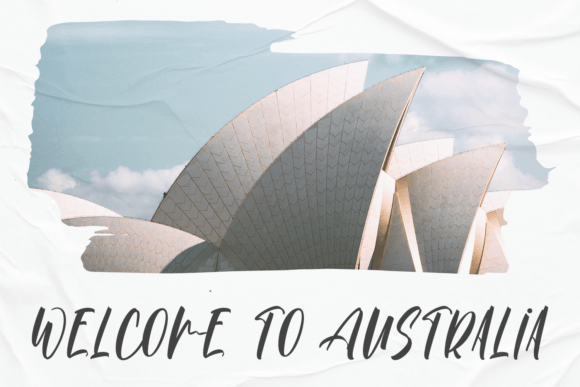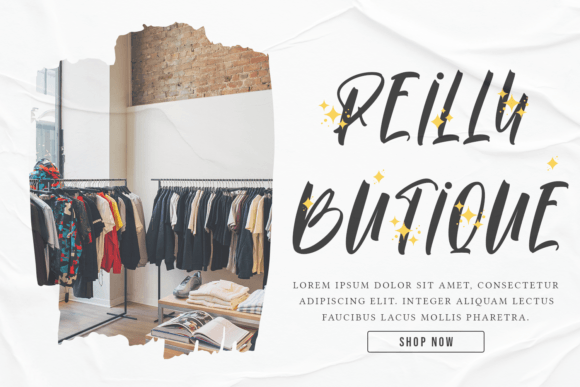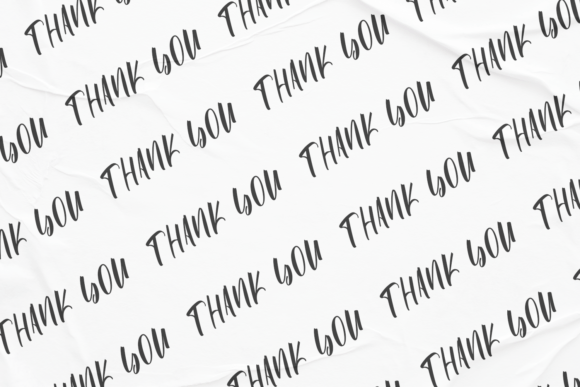
Nicholas Font
About Nicholas Font
Introducing Nicholas, a fun and friendly handwritten font that adds a touch of whimsy and a dash of quirkiness to your designs. With its playful vibe, this font is designed to bring joy and brightness to each of your creative projects. Add Nicholas confidently to your designs, and you’ll love the results as it injects a sense of fun and personality.
What sets Nicholas apart is its lighthearted and approachable demeanor. The handwritten style adds a touch of authenticity, making it perfect for projects that require a friendly and casual vibe. Imagine Nicholas on greeting cards, where it brings a smile to the recipient. Picture it in posters or social media graphics, creating a sense of playfulness that captures attention.
Nicholas goes beyond being just a font; it’s a creative tool that brings a sense of joy to your designs. Its whimsical nature makes it suitable for a variety of applications. Whether you’re working on invitations, quotes, or any project that needs a friendly touch, Nicholas is ready to infuse a bit of quirkiness into your creations.
Picture Nicholas brightening up your designs, adding a sense of fun to your projects. Envision it in branding materials, creating a memorable and approachable identity for your brand. Its friendly and handwritten charm makes it a versatile choice for a wide range of creative endeavors.
In conclusion, Nicholas is more than just a font; it’s a playful companion ready to add a dose of whimsy to your designs. Download it today and experience how it transforms your projects into expressions of fun and friendliness. Make Nicholas a go-to font for injecting personality into your designs, and let it be the key to creating cheerful and lighthearted visuals!